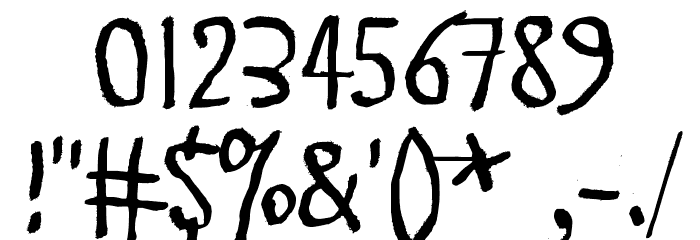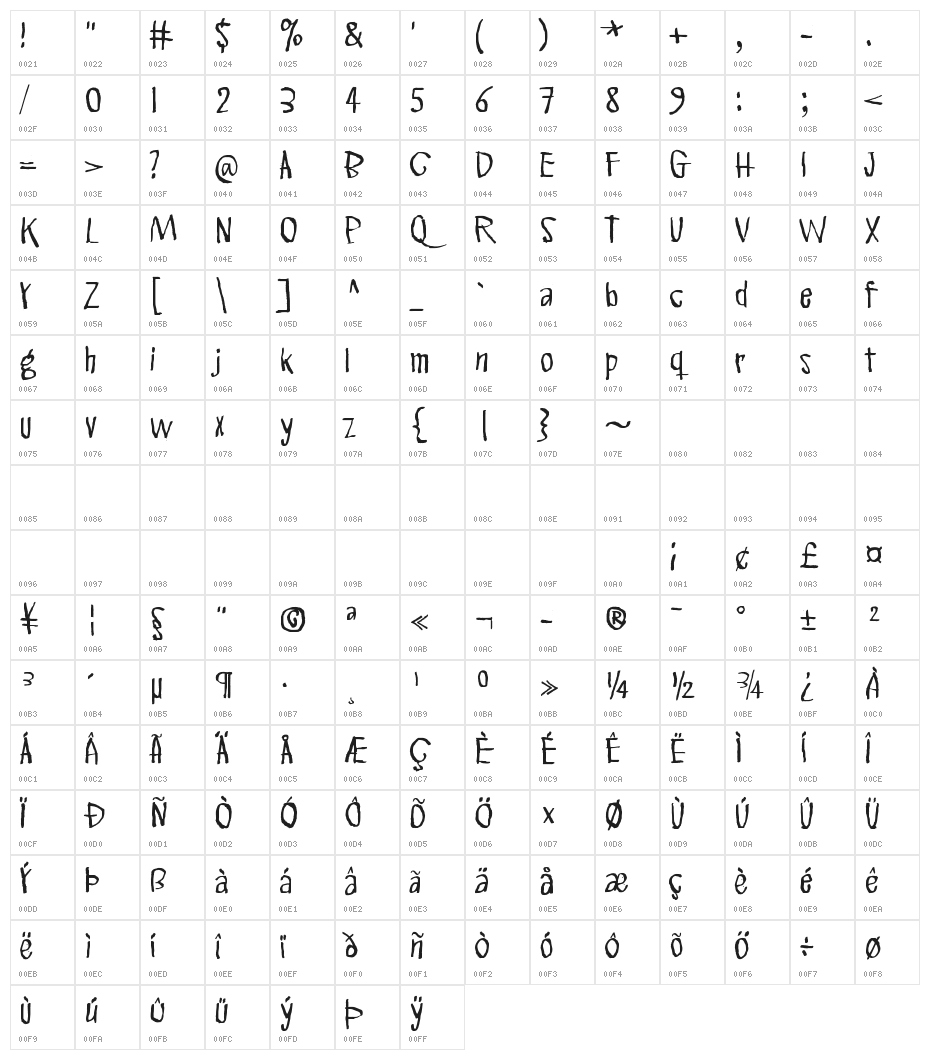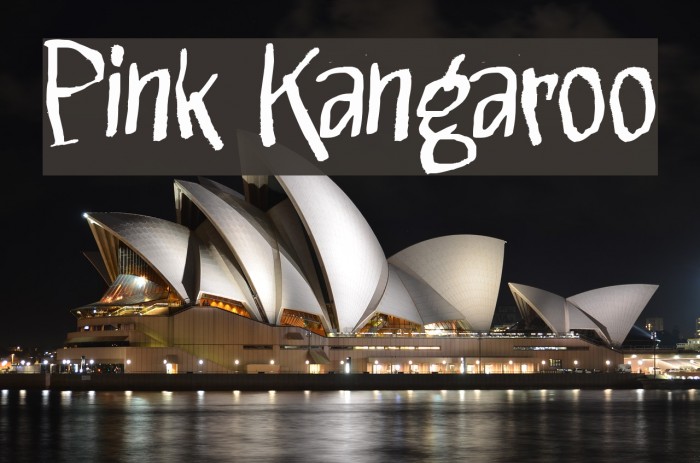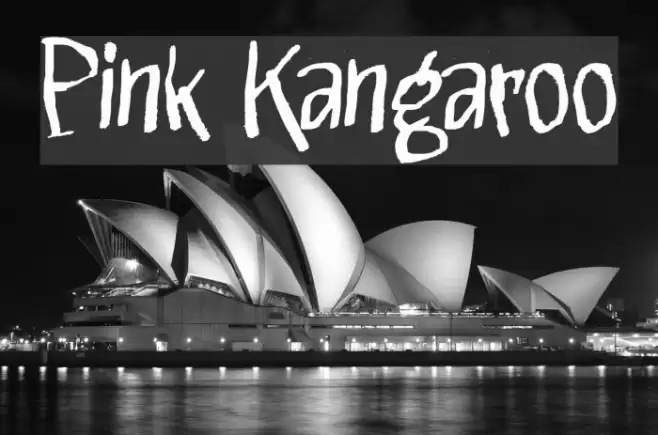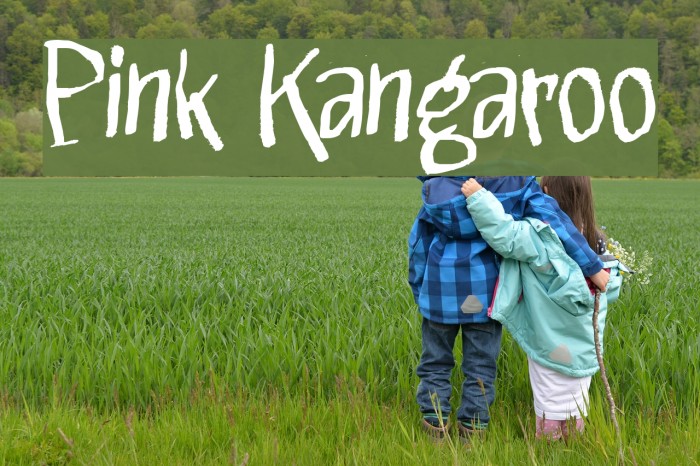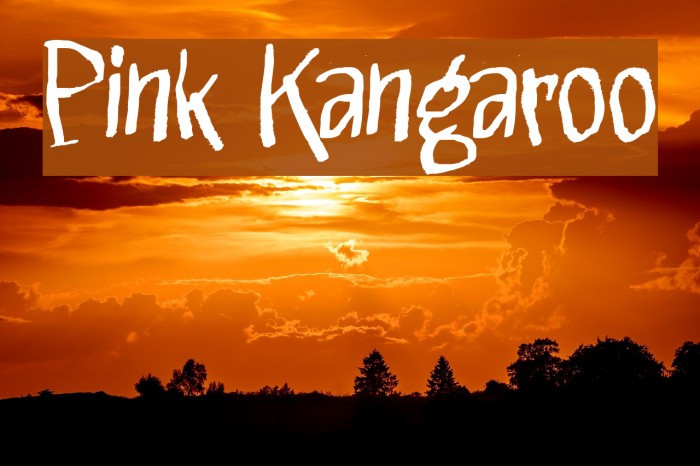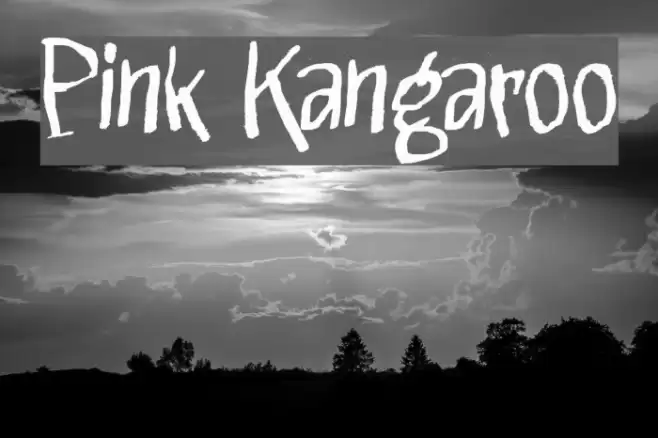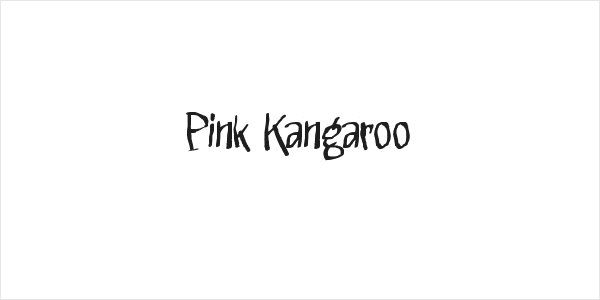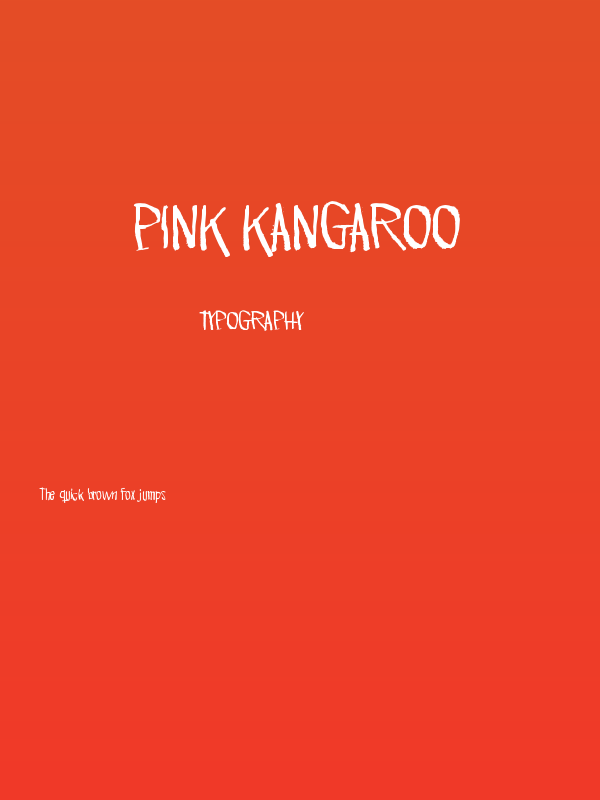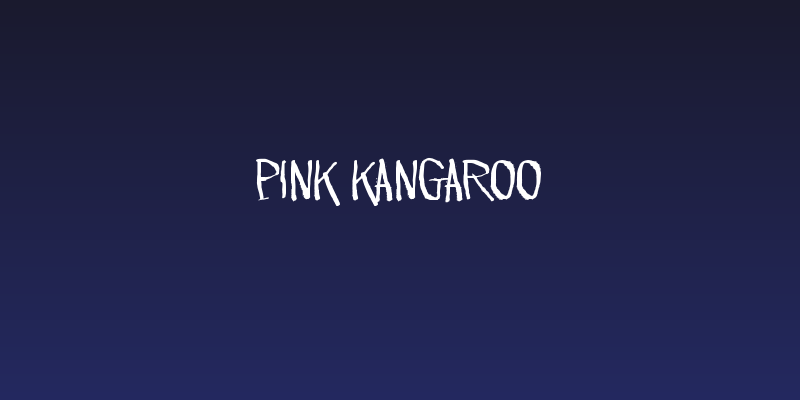
Pink Kangaroo Font
Pink Kangaroo Description
This font exhibits a playful and artistic style, characterized by its hand-drawn appearance. The letters have an uneven, organic quality, with varying stroke widths that give it a lively and dynamic feel. The uppercase and lowercase letters maintain a consistent style, with slightly exaggerated curves and angles that add to its whimsical nature. The numbers and special characters follow the same design principles, ensuring a cohesive look throughout. This font's unique and informal style makes it stand out, offering a creative touch to any project.
| Proposed Projects | Ideal for children's books, creative posters, artistic branding, and playful invitations. |